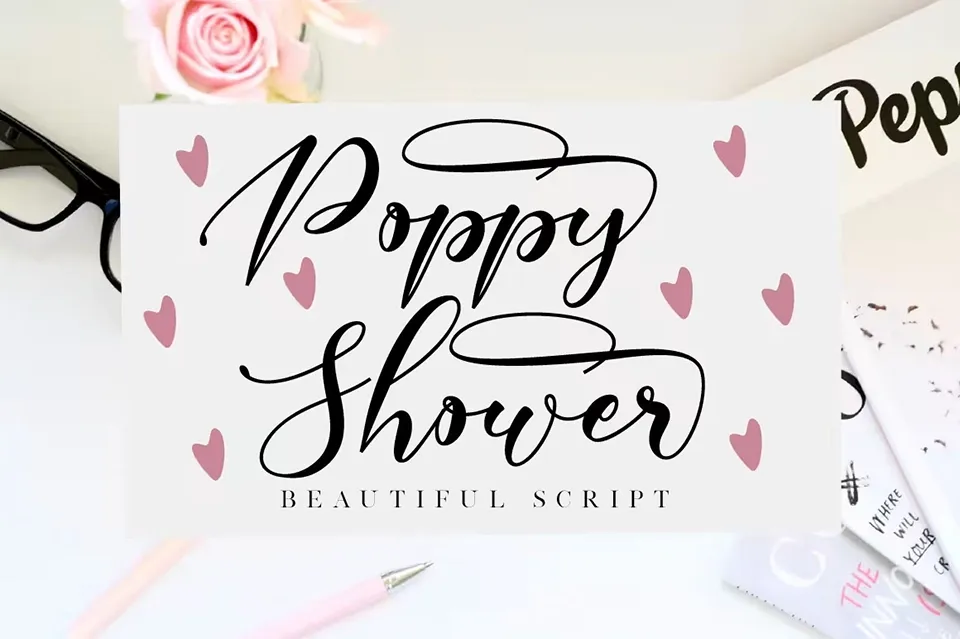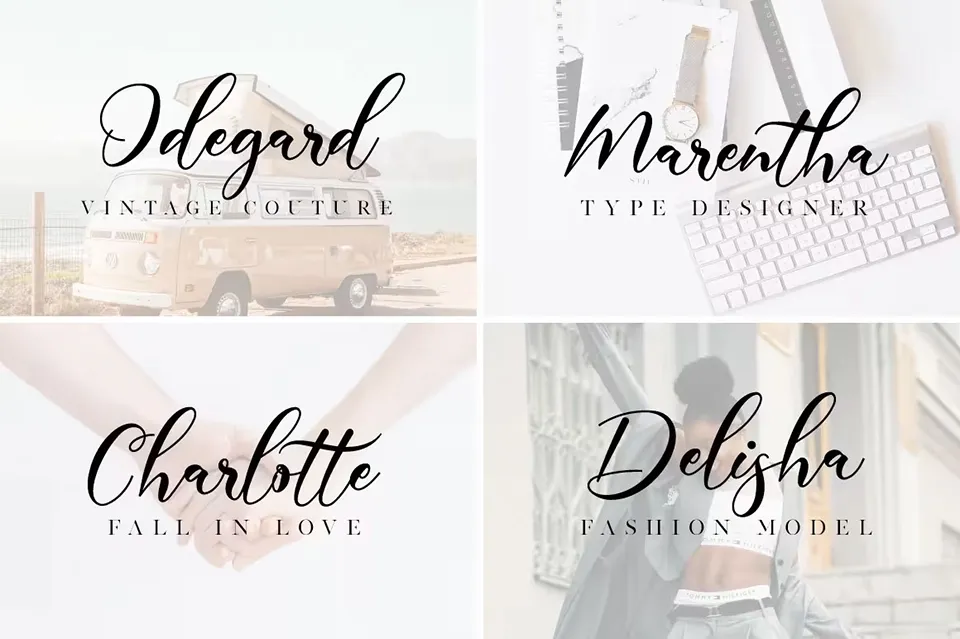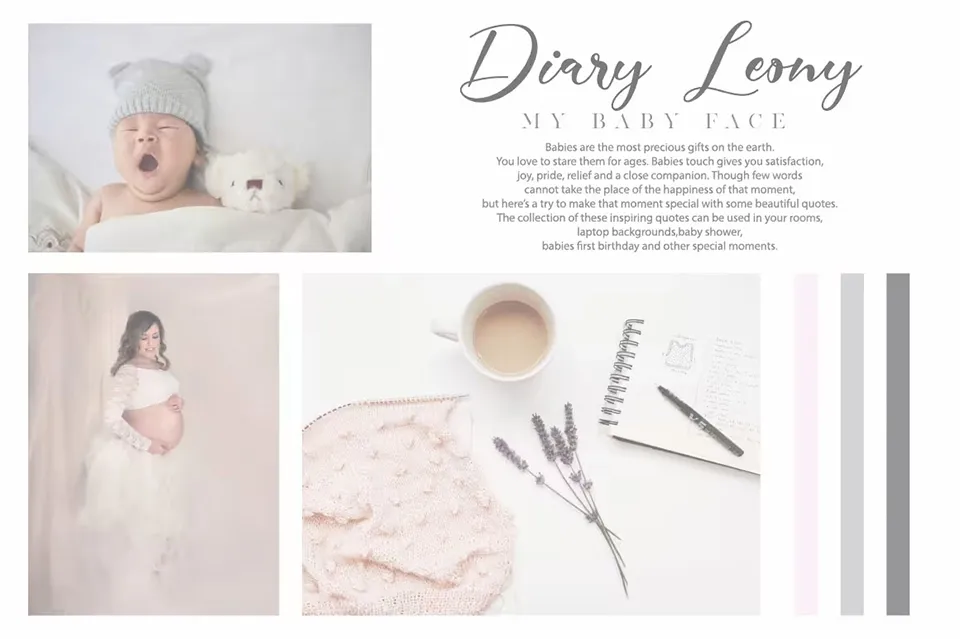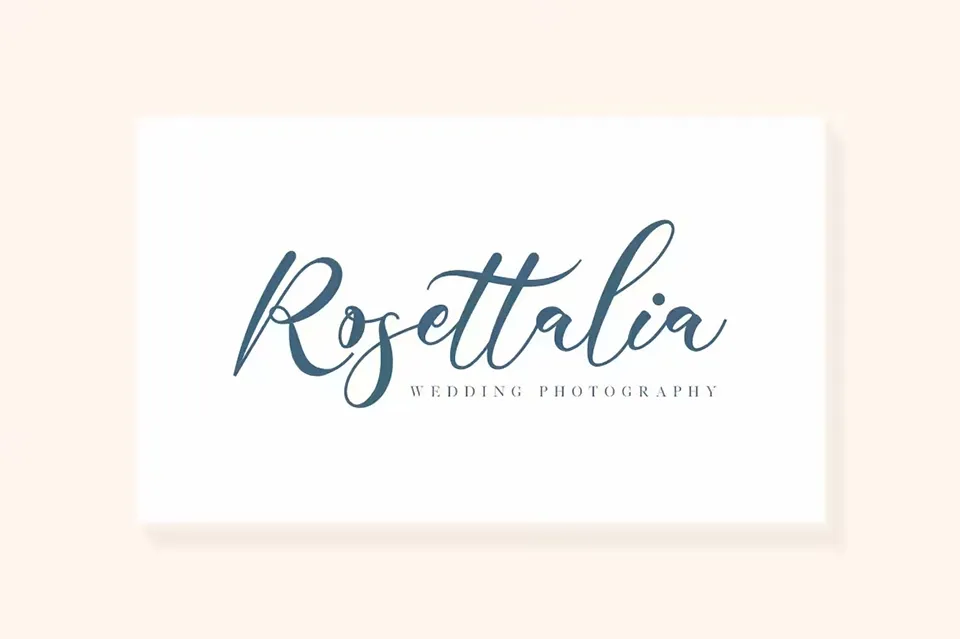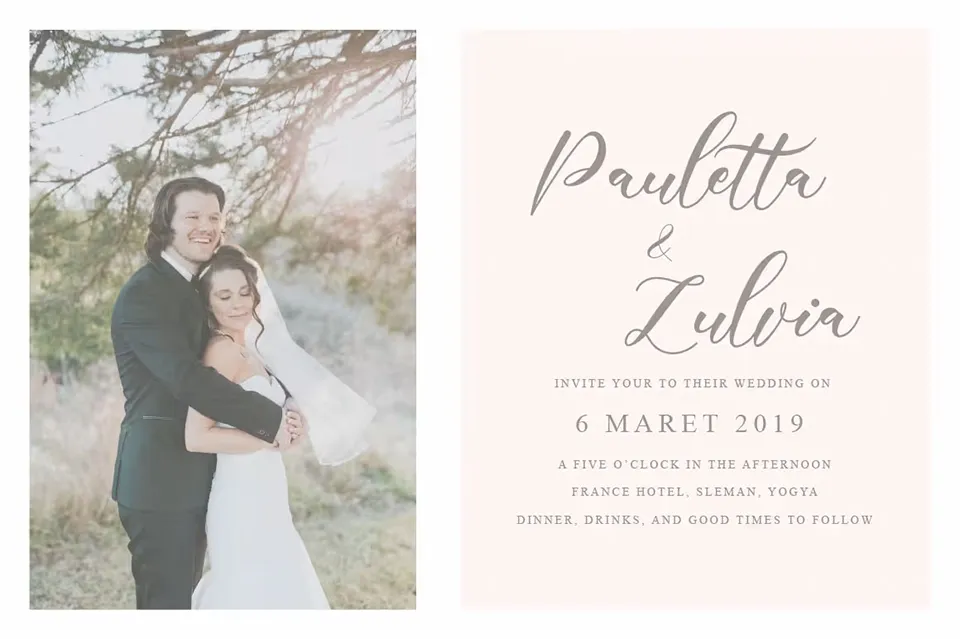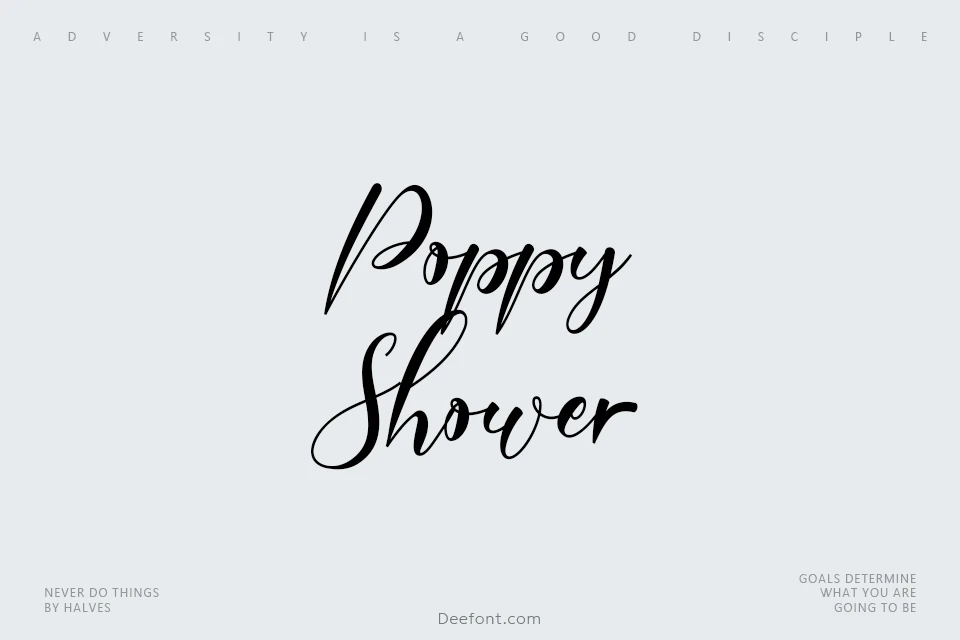
Poppy Shower Font
Poppy Shower Font is a beautiful script typeface perfect for adding an elegant touch to your designs. With its flowing lines and delicate curves, it brings a sense of sophistication and charm to any project. Ideal for wedding invitations, branding, and feminine designs, Poppy Shower offers a graceful and stylish aesthetic. Its versatility makes it suitable for various creative applications, ensuring your text stands out with a unique and refined look. If you want a font that combines beauty and readability, Poppy Shower is an excellent choice.